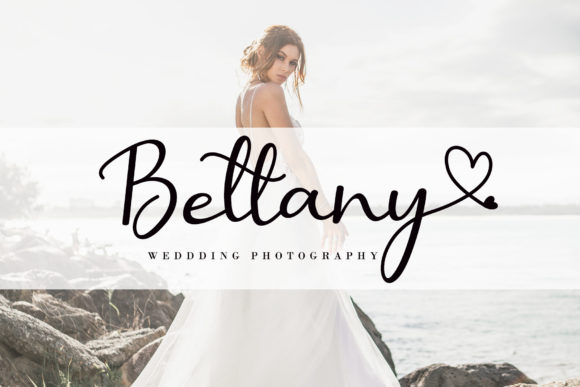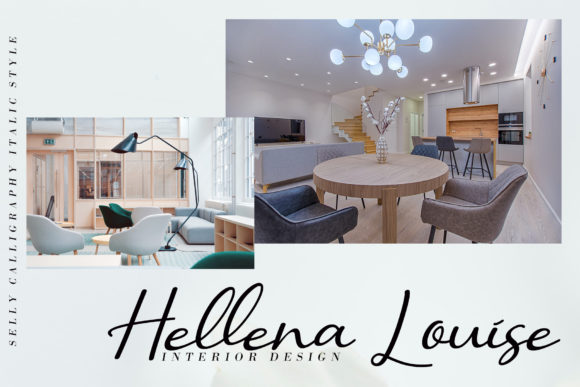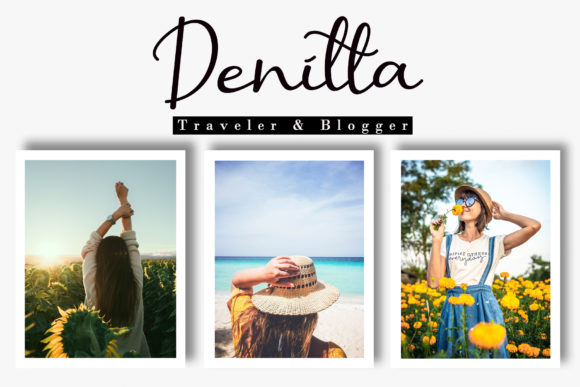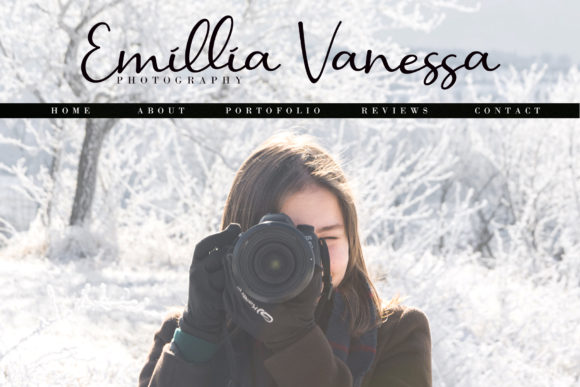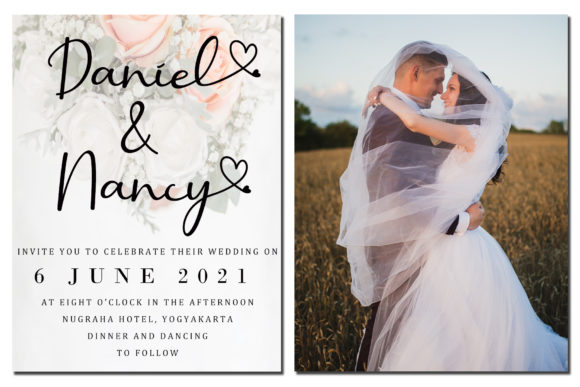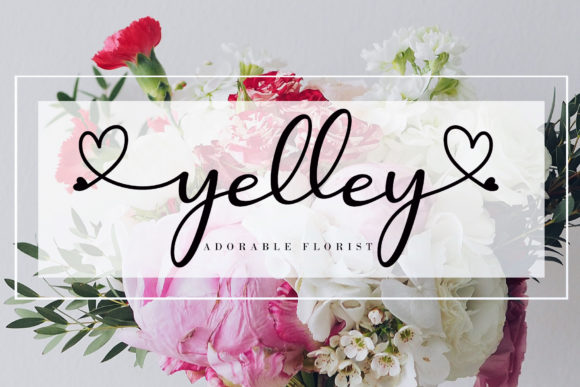
Introduction to Selly Font
Have you ever stared at a blank canvas, feeling the pressure to create something truly special? As designers, we’ve all been there – searching for that perfect font to bring our creative project to life. And today, we’re excited to introduce you to Selly Font, a beautiful modern handwritten font featuring cute hearts in its swashes. This stunning font is sure to elevate your designs to the highest level, making it an invaluable addition to any design resource.
Key Features of Selly Font
- Unique, modern font with a transparent background, perfect for use on any design surface.
- Features a clean and minimalist design, making it suitable for use in logos, branding, and digital products.
Honest Review: Selly Font
As a designer, I’m always on the lookout for high-quality design resources to elevate my creative projects. Recently, I had the chance to try out the Selly Font, and I must say, it’s been a game-changer.
What works well: ✨ The Selly Font is incredibly versatile, with a range of styles that can be used for both digital and print projects. The transparent background is also a major plus, making it easy to customize and integrate into any design. The font is also highly legible, even at smaller font sizes.
- Legible even at smaller font sizes
- Perfect for digital and print projects
Overall impression: I’m thoroughly impressed with the Selly Font. It’s a high-quality design resource that’s perfect for any creative project. While it may have some limitations, the benefits far outweigh the drawbacks. If you’re looking for a reliable and versatile font, the Selly Font is definitely worth checking out.
Selly Font
Tips for Getting the Most Out of Selly Font
For optimal results, use Selly Font on a transparent background to ensure a seamless design. You can also experiment with different font sizes and styles to add visual interest to your project.
Selly Font is perfect for: